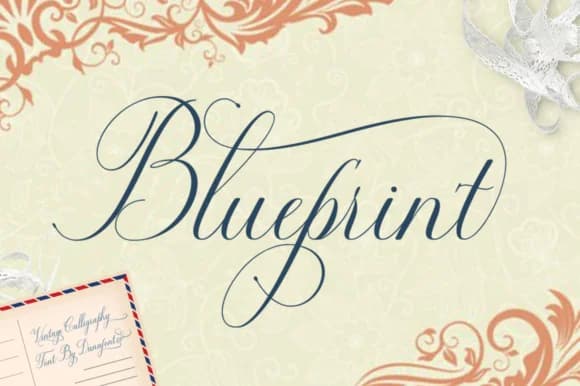
1 / 7About Blueprint Font
Blueprint Font by Danafont.co is a flowing handwritten script designed to bring refined personality and authentic character to typography-driven projects. This font features extensive alternate characters that allow designers to customize the appearance of each individual letter, creating variations that feel naturally expressive and organic rather than mechanical or repetitive. The carefully crafted letterforms work together to create a cohesive aesthetic that reads as intentionally handwritten.
With its sophisticated approach to letterwork, Blueprint excels at bringing personality to wedding invitation suites, luxury cosmetics and skincare branding, upscale restaurant menu layouts, and handmade craft product packaging design. The multiple alternates mean you can achieve genuine variation and natural-looking letterwork across entire projects without manual adjustments or workarounds. This technical flexibility becomes especially valuable when working on large projects where repetition needs to feel intentional rather than obvious. Whether developing comprehensive branding systems for boutique businesses or crafting bespoke stationery collections, the ability to vary letterforms maintains visual interest and reinforces the sense of personal, individualized attention.
Blueprint Font is a script font that shines as a display or heading face. Pair it with a clean sans-serif or serif font for body text β the contrast creates a clear hierarchy while the two styles stay balanced and easy to read.
Blueprint Font
by Danafont.co